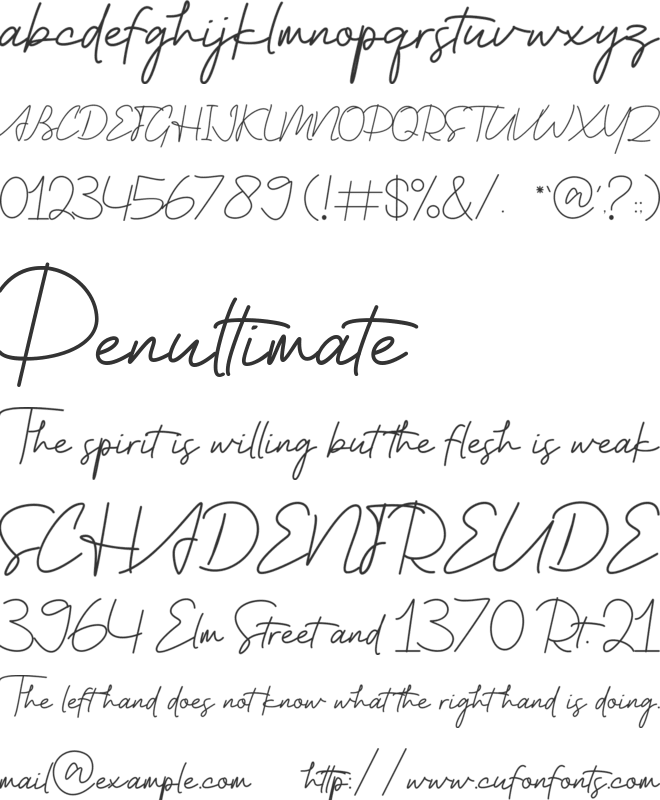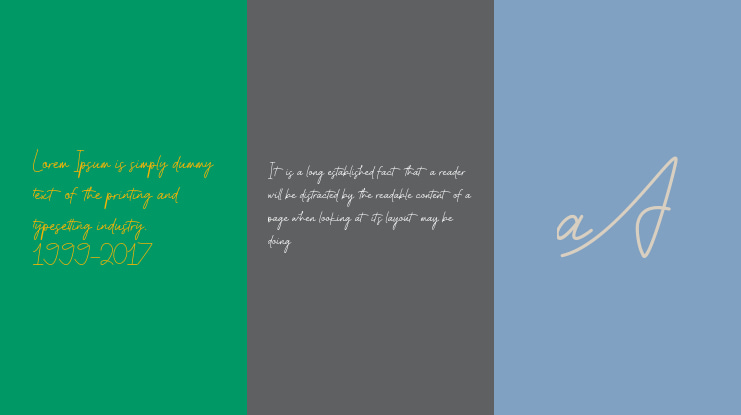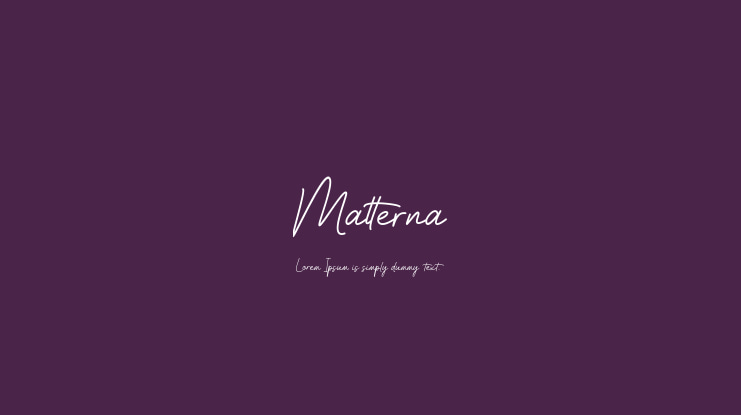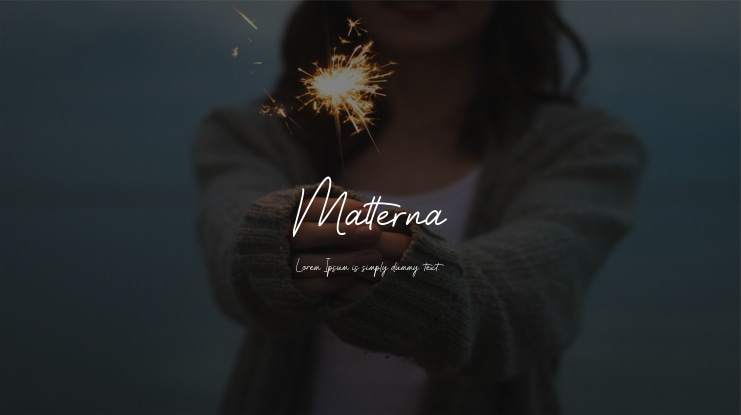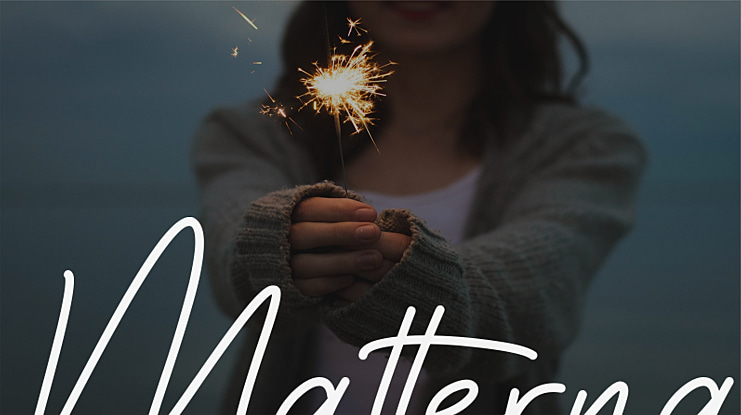
Matterna Font
I am here to offer my product which is named Mattena. This font is Script - Handwritten. You can use this font for various purposes such as covers, magazines, signatures, notes, posters, advertisements, banners, and much more. This font also comes with several ligatures and swashes which make this font even more beautiful.